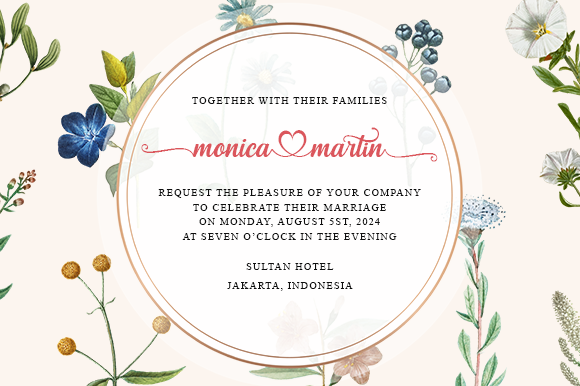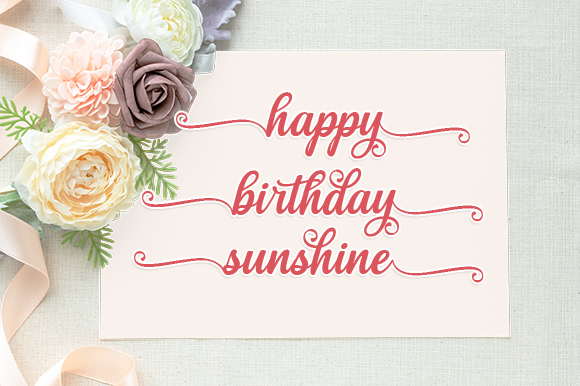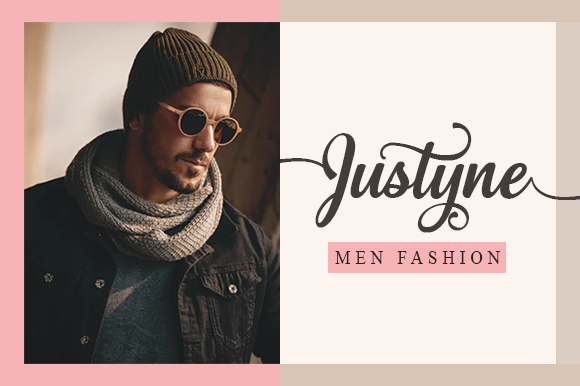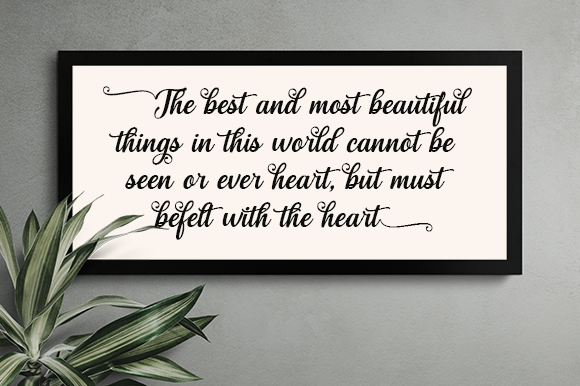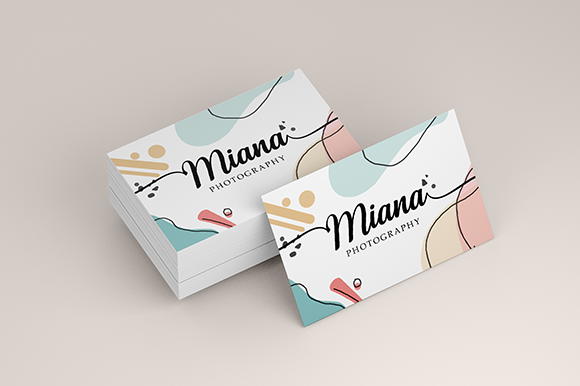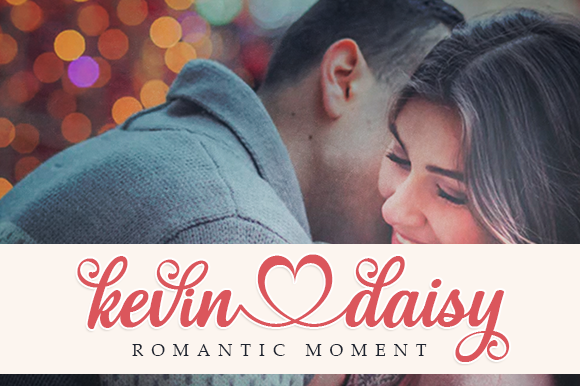
Introduction to Mama Mimi Font
Have you ever been working on a creative project, pouring your heart and soul into it, only to feel like something is missing? You’ve got the perfect idea, but the design just needs that extra special touch. That’s where Mama Mimi Font comes in – a lovely script font that adds a dash of whimsy and charm to any design.
Mama Mimi Font is a game-changer for designers, offering a unique and playful touch that sets your work apart from the rest. With its PUA encoded features, you can easily access all the glyphs and swashes to create a truly high-quality design resource.
Whether you’re working on a project that requires a transparent background or just want to add some personality to your design, Mama Mimi Font is a valuable asset to have in your toolkit.
Key Features of Mama Mimi Font
- Unique and Whimsical Design: Mama Mimi Font is a high-quality design resource ideal for creative projects, offering a distinctive and playful touch.
- Transparent Background: This font features a transparent background, allowing for easy customization and blending with other design elements.
- Perfect for Creative Projects: With its creative and whimsical design, Mama Mimi Font is ideal for various projects, including children’s books, greeting cards, and more.
Honest Review: Mama Mimi Font
I recently came across the Mama Mimi Font, and I’m excited to share my thoughts on this design resource. As a designer, I’m always on the lookout for high-quality fonts that can elevate my creative projects.
- The Mama Mimi Font has a unique, whimsical feel that’s perfect for projects that need a touch of playfulness.
- The font may not be suitable for professional or formal projects, as it has a more casual, handwritten feel.
- The character set is limited, which may not be ideal for projects that require a wide range of characters.
Overall, I’m impressed with the Mama Mimi Font’s potential as a design resource. While it may have some limitations, it’s a great option for designers working on creative projects that need a touch of personality.
Tips for Getting the Most Out of Mama Mimi Font
To get the most out of the Mama Mimi Font, use it in conjunction with a transparent background to create a high-quality, eye-catching design. Experiment with different font sizes, styles, and colors to add visual interest to your project.
The Mama Mimi Font is perfect for creative projects, such as invitations, greeting cards, and social media graphics. Its unique style and high-quality design make it an excellent choice for designers looking to add a touch of elegance to their work.